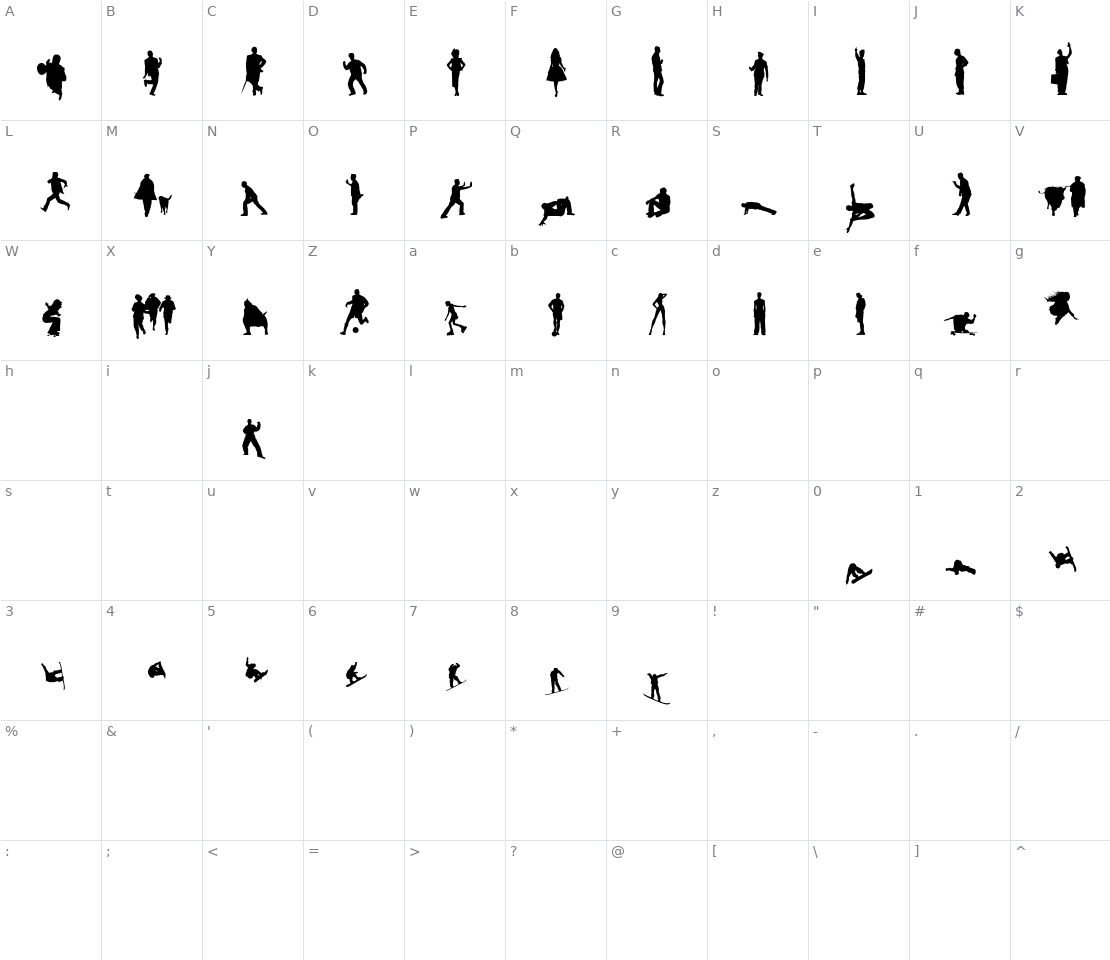
Celebrity
by Pierre "Trafik" Rodi�re
Celebrity is a novelty dingbat font by Pierre "Trafik" Rodière, replacing letters with silhouetted human figures in various poses. The shapes read as paparazzi-ready outlines of people standing, gesturing, and striking iconic stances. Useful for decorative borders, editorial illustrations, or event graphics where you need quick human figure icons without reaching for clip art.